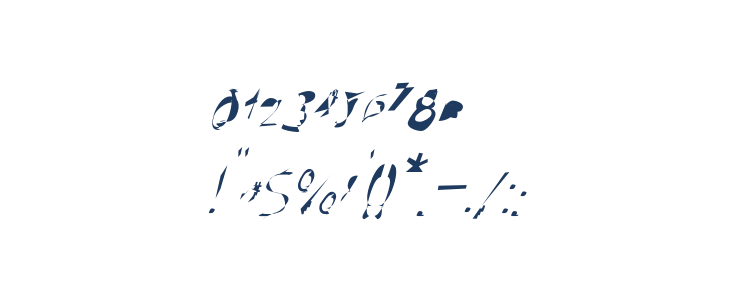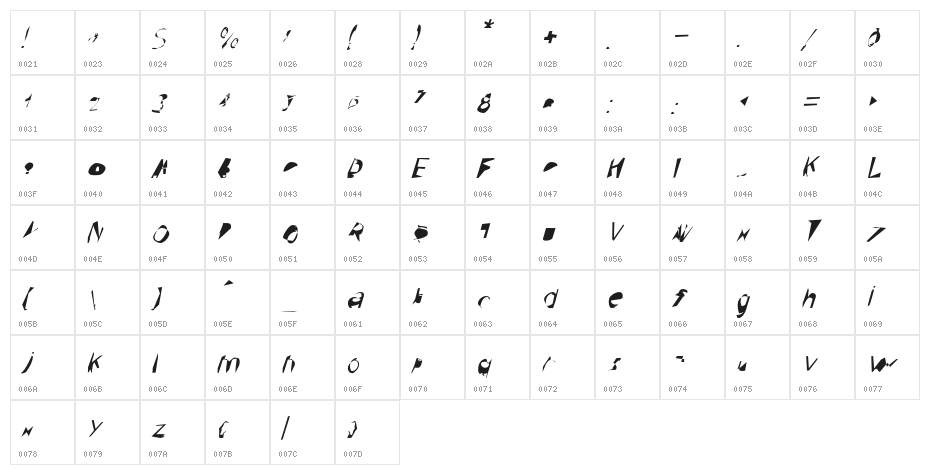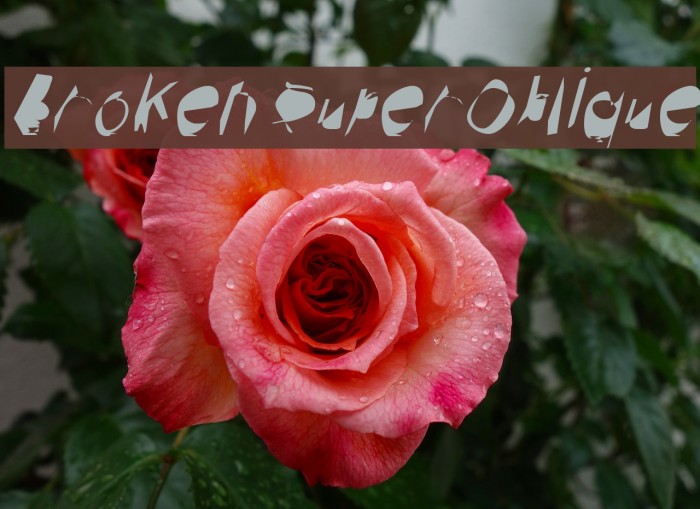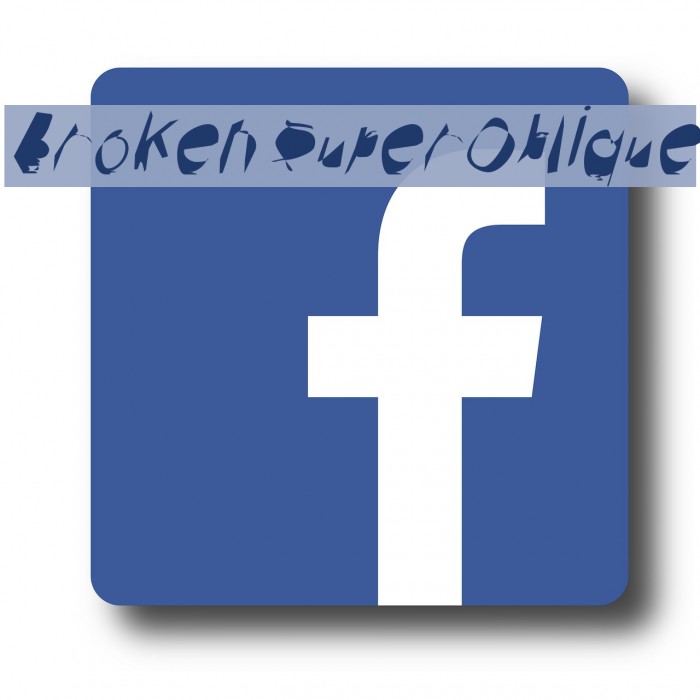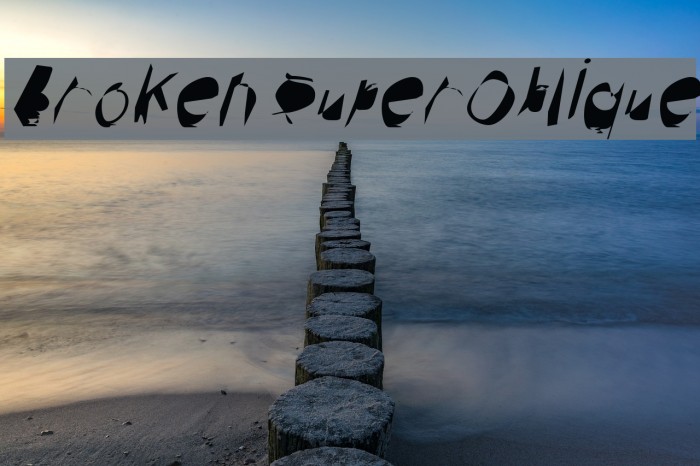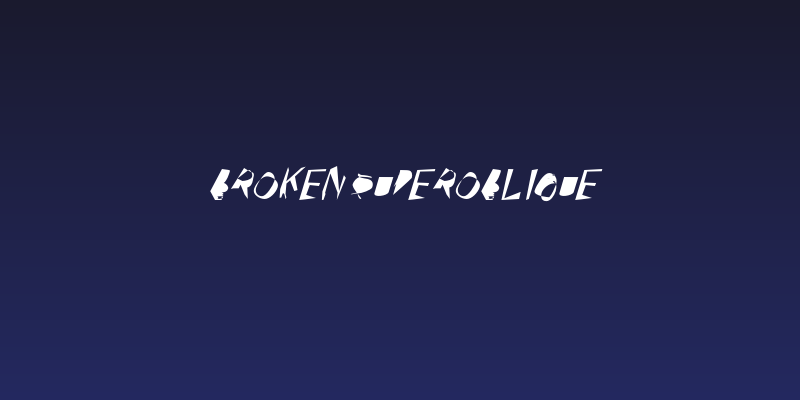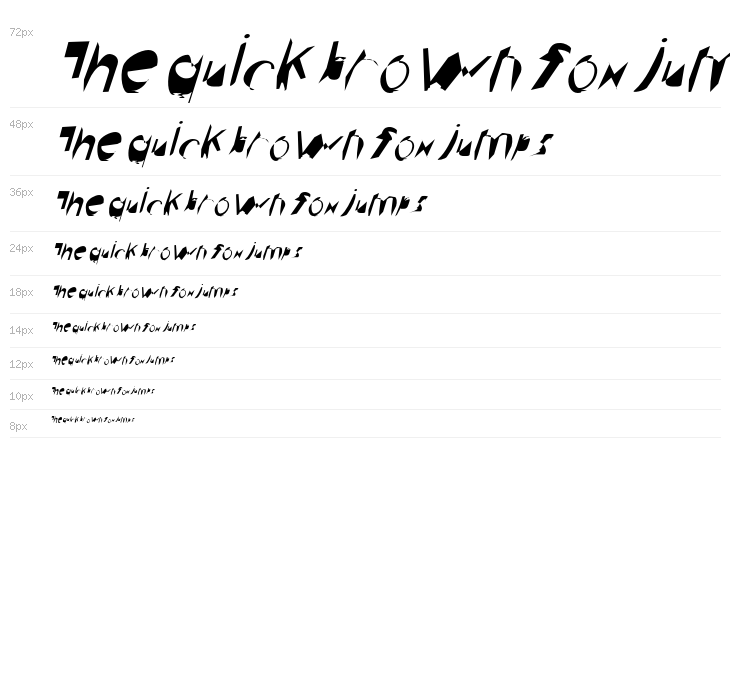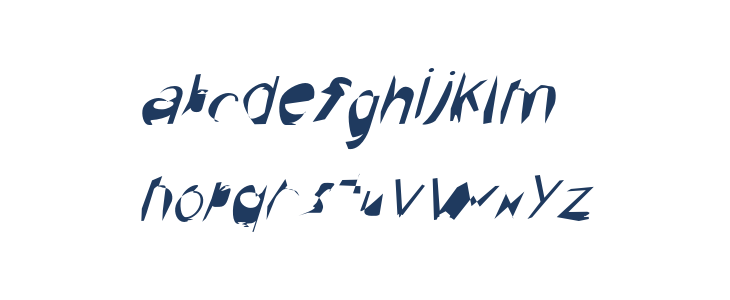
Broken SuperOblique Font
Broken SuperOblique Description
This font features a highly stylized and fragmented design, characterized by sharp angles and dynamic, broken strokes. The letters appear as if they are shattered or sliced, giving a sense of movement and chaos. The uppercase and lowercase letters maintain a consistent theme of disarray, with each character exhibiting unique cuts and slants. Numbers and special characters follow the same disruptive style, making the font suitable for projects that require a bold, unconventional look. The overall appearance is striking and modern, with a touch of rebelliousness.
| Overall Style | Modern, Edgy |
| Proposed Projects | Ideal for edgy branding, album covers, posters, and digital art projects. |